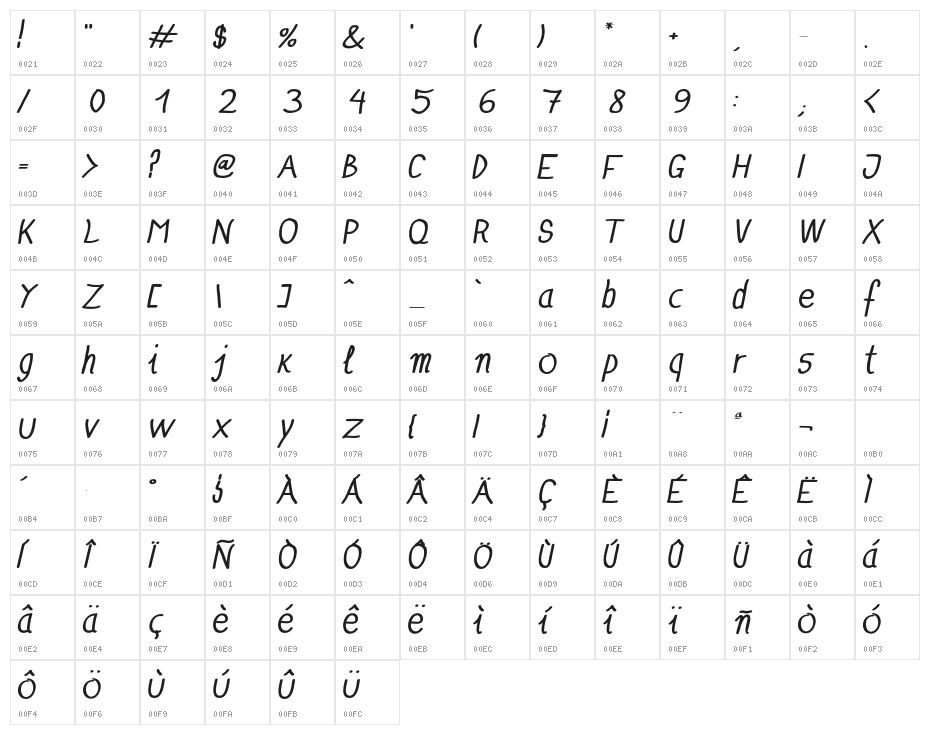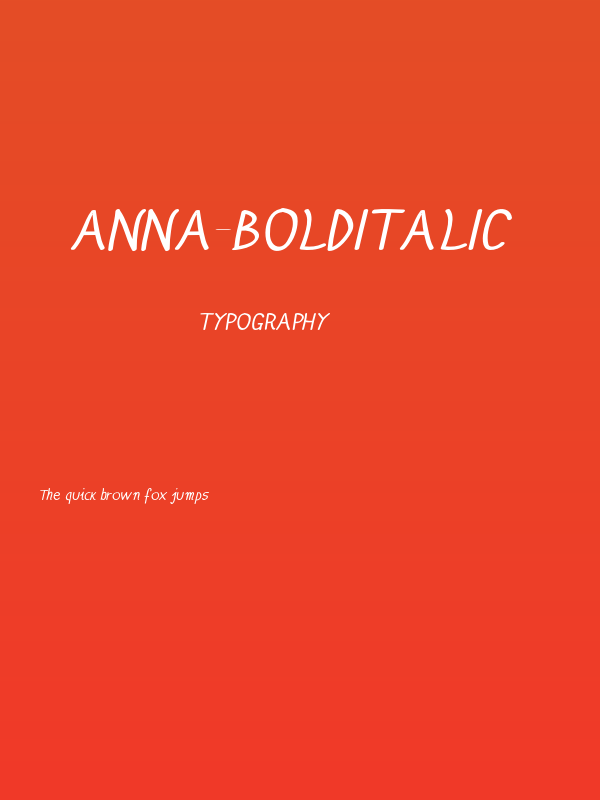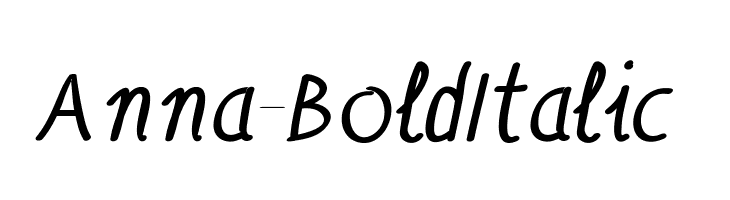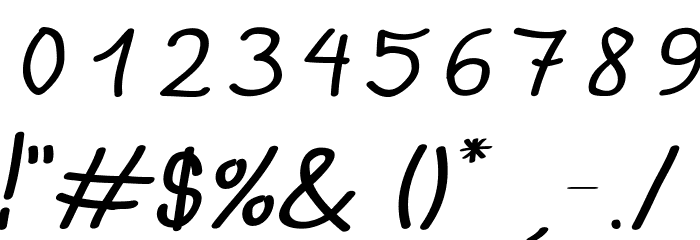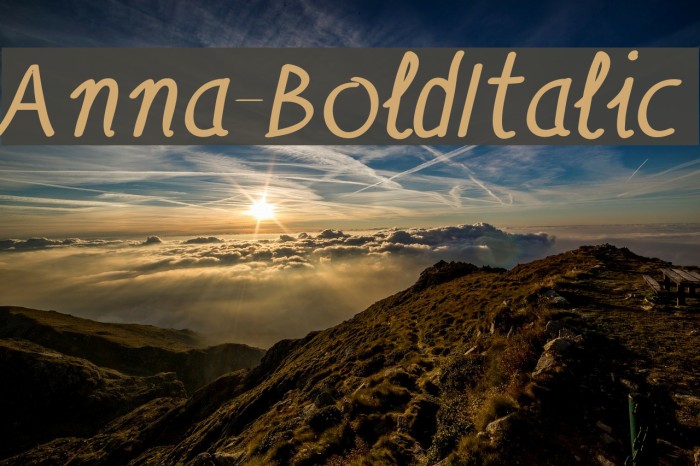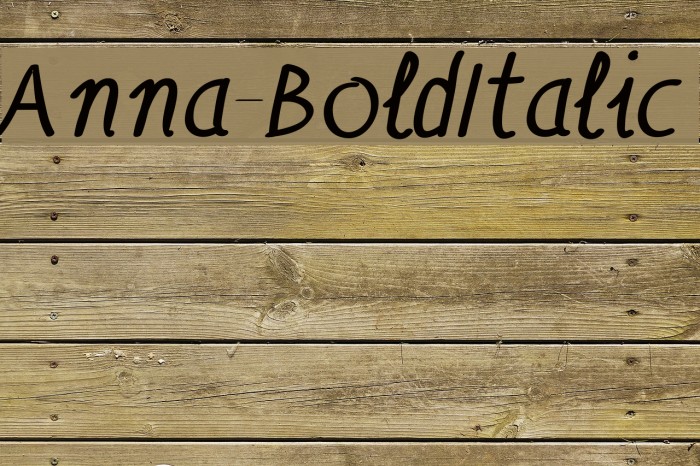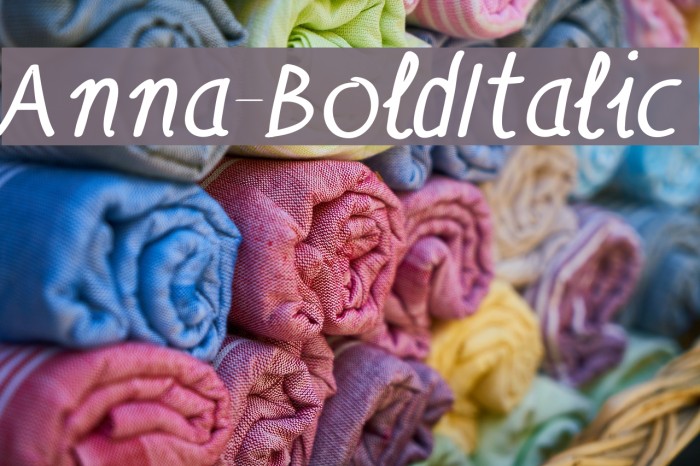
Anna-BoldItalic Font
Anna-BoldItalic Description
This font features a dynamic and fluid style, characterized by its italicized and bold appearance. The letters are slightly slanted, giving a sense of motion and elegance. The strokes are consistent in thickness, providing a uniform look across all characters. Uppercase letters maintain a strong presence, while lowercase letters exhibit a more playful and cursive-like quality. The numerals are clear and easy to read, complementing the overall design. Special characters are well-integrated, maintaining the font's cohesive style.
| Use Case | Headlines, Logos, Branding |
| Proposed Projects | Ideal for branding, advertising, and editorial design projects that require a bold and elegant touch. |